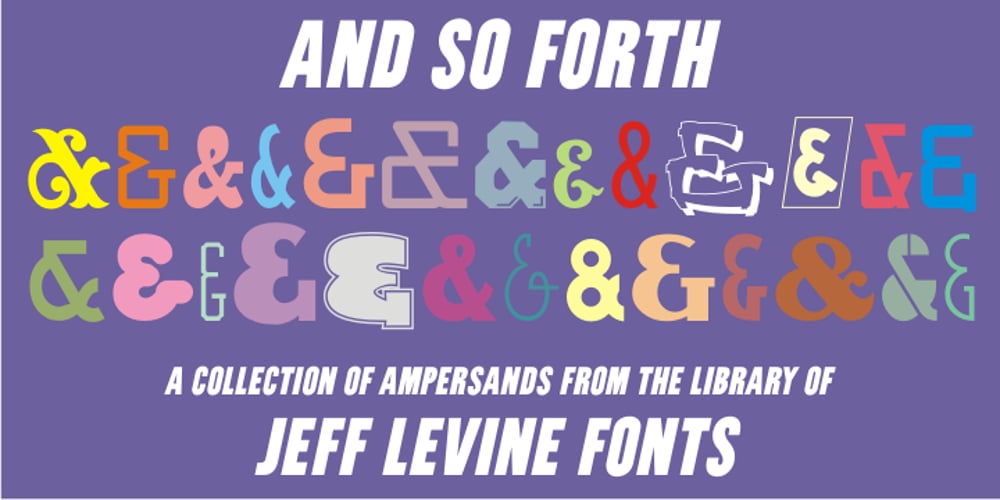
And So Forth JNL Font Family was designed by Jeff Levine and published by Jeff Levine. And So Forth JNL contains 1 styles and family package options. Barbara D. Berney (a graphic artist and friend of Jeff Levine) had suggested making a font featuring many of the ampersands from Jeff’s large library of type, noting their popularity as decorative embellishments. And So Forth JNL is the finished font – loaded with hundreds of ampersands in a wide variety of styles.